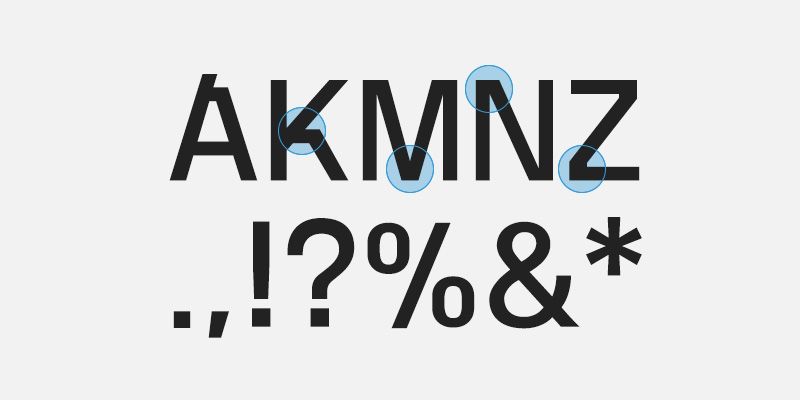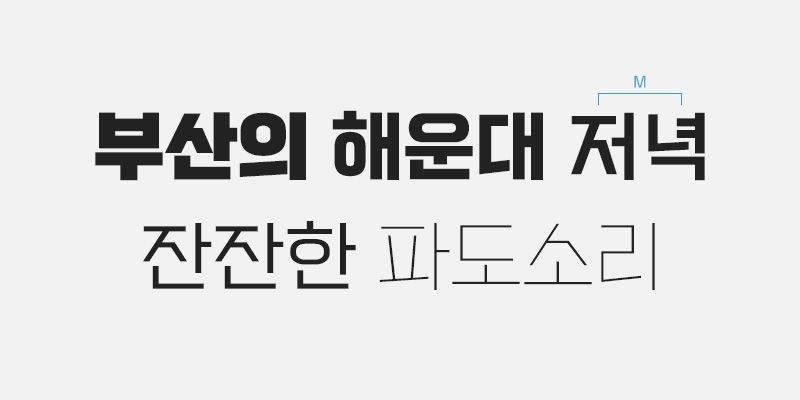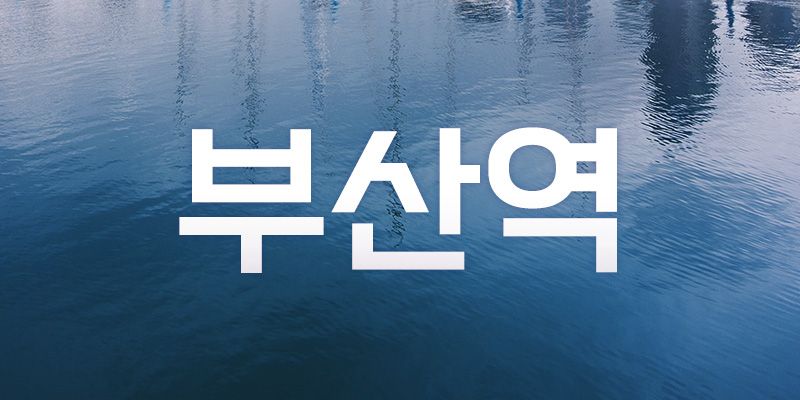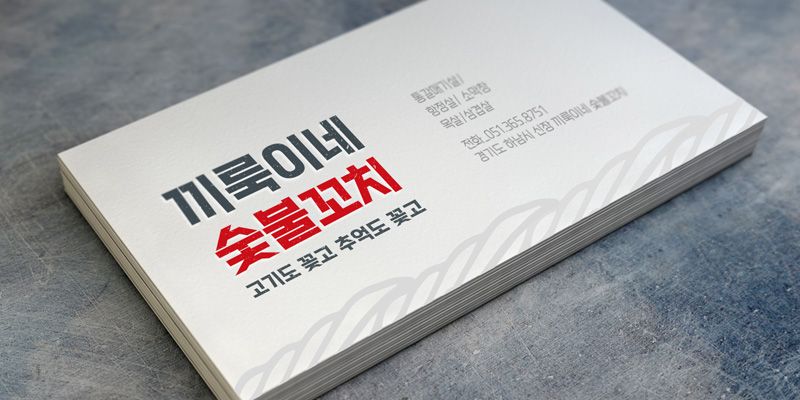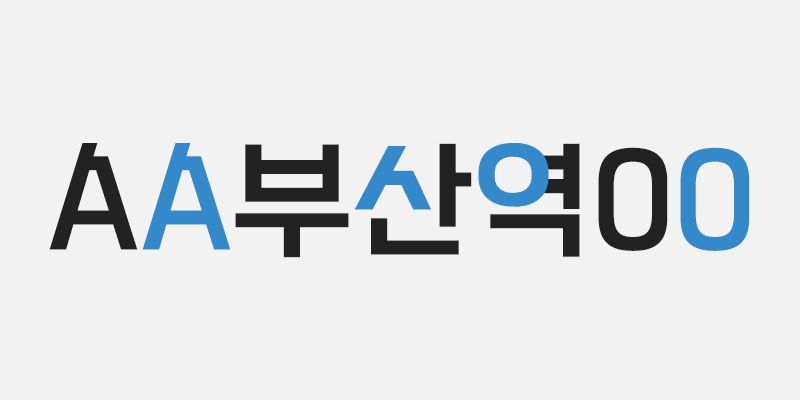
RixBusanStation is a neat font with a retro and unprocessed feel.
It is inspired by the long bridges such as Gwangandaegyo Bridge in Busan, which results in a unique stroke structure. The joint structure brings out retro expressions that are highly legible to add more character.